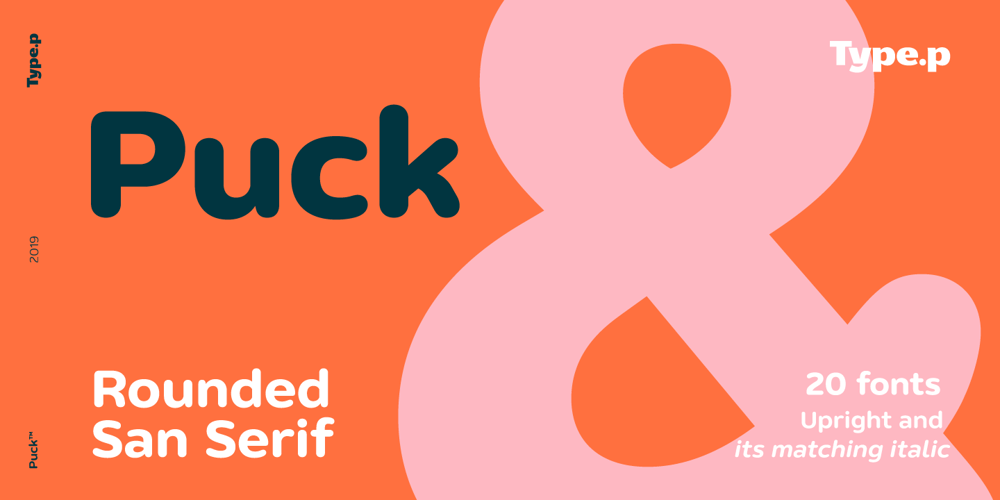
Puck Font Family was designed by Parin Rungpattarathakun and published by Type.p. Puck contains 20 styles and family package options. Puck is a Rounded Sans Serif font that comes in 20 styles from Thin to Black, including italics. Its design, which features rounded edges, open terminals, and extended width, along with generous negative space, ensures easy readability across different sizes. It’s a versatile choice for various applications like print, banners, and branding. Plus, it maintains its adorable appeal on social media platforms like Instagram. Puck’s design brings a blend of elegance and cuteness to any project.